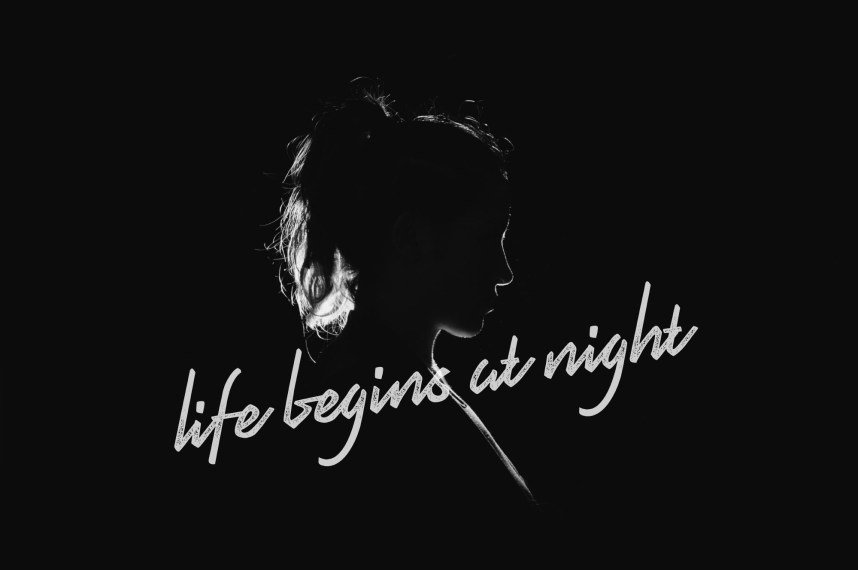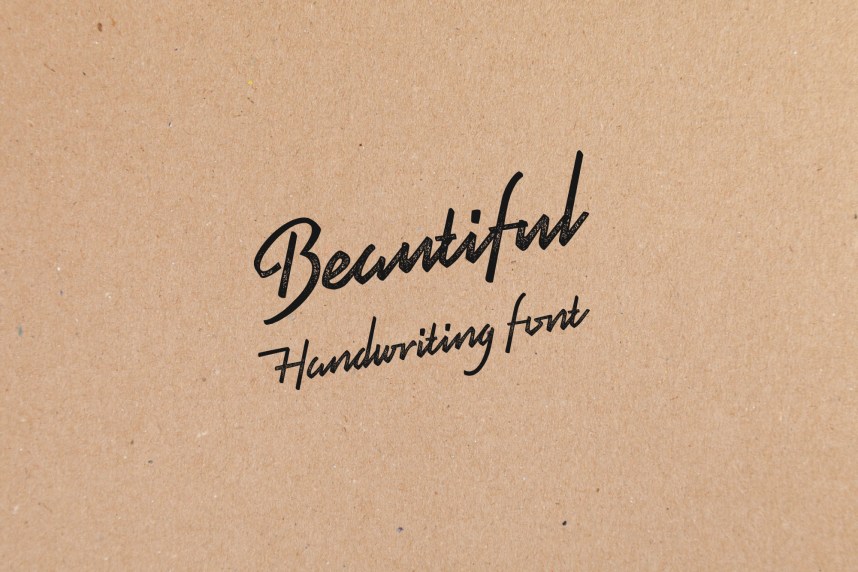
Pristine Script Font
Pristine Script – Free Font
The first free font package today is a high quality Handwriting font, carrying the classic calligraphy style. Introducing to PristineScript Font. Pristine was designed by G. Senzana and shared by Graphic Pear. Pristine typeface is a fully developed script font built up of letters, numerals and various glyphs. Use it for headings, t-shirts, letterheads, labels, news, badges, invitations, personal cards, posters or product logos and names…